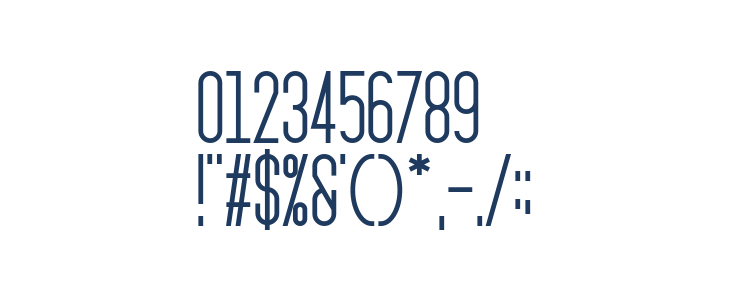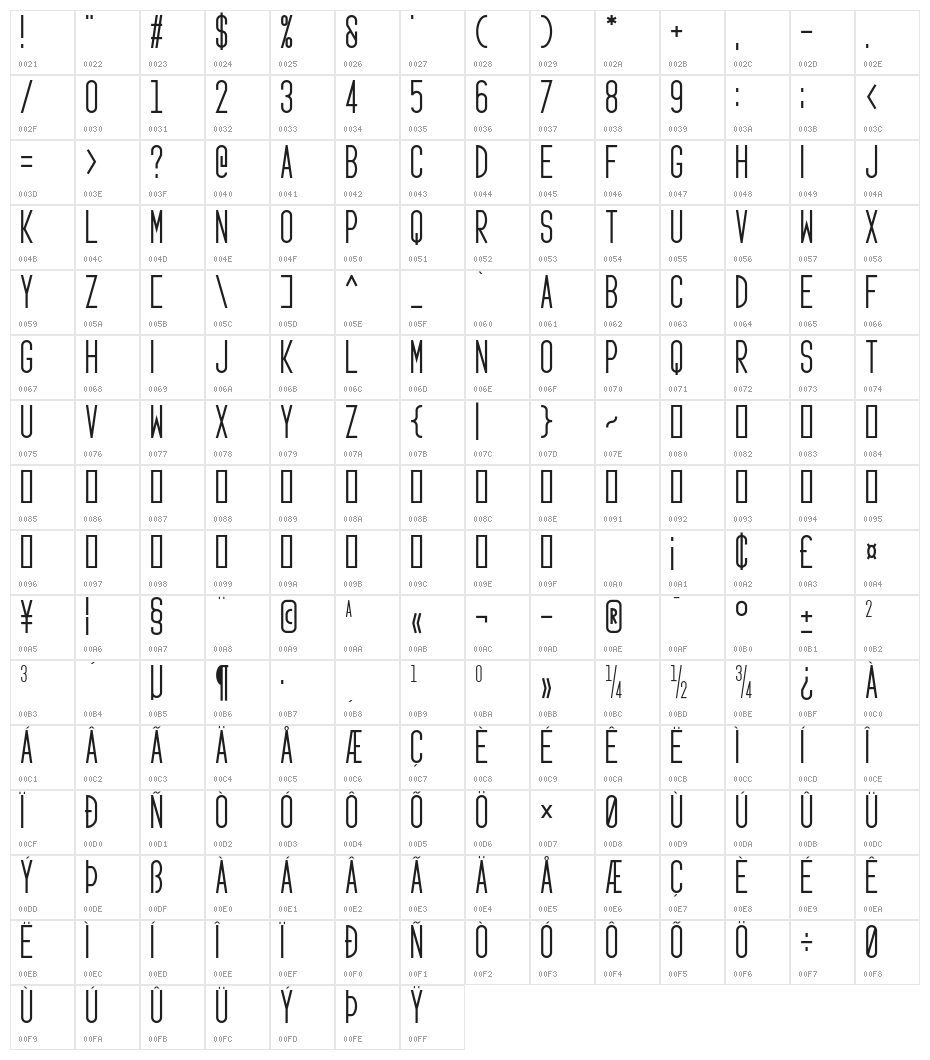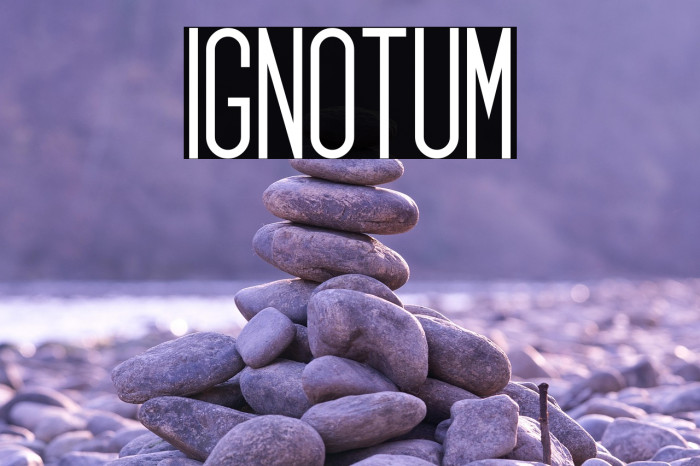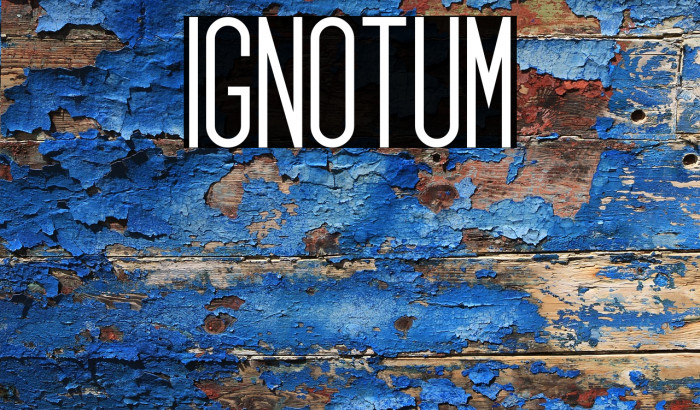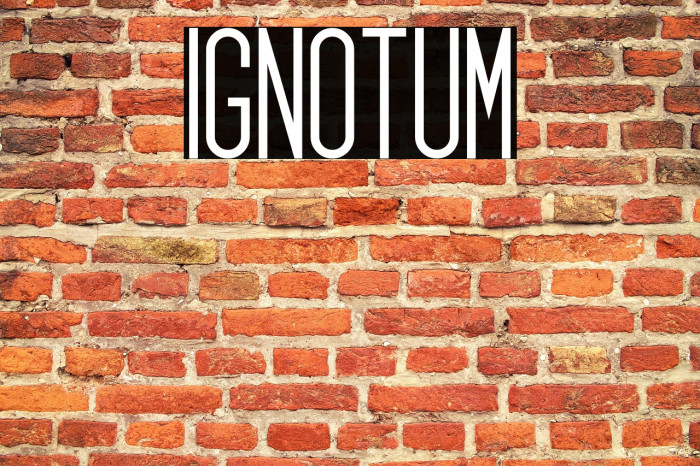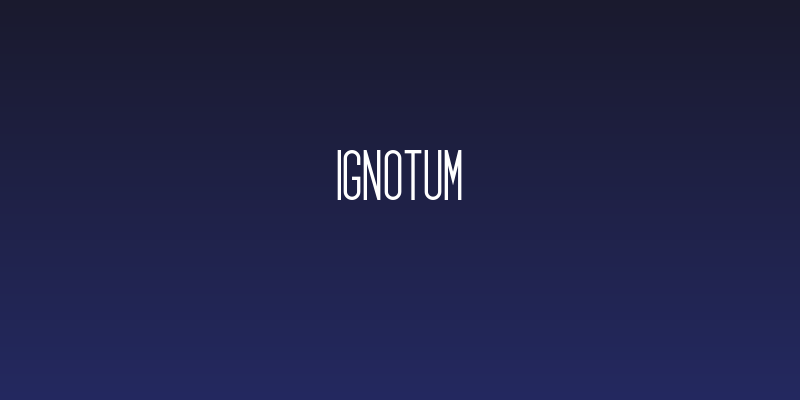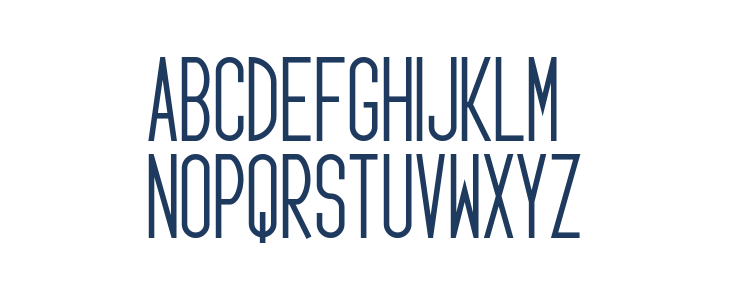
Ignotum Font
Ignotum Description
This font features a tall, narrow design with a distinctly modern and geometric appearance. The characters are uniformly aligned with consistent stroke widths, giving it a clean and structured look. The uppercase letters are particularly elongated, creating a striking vertical emphasis. The numerals and special characters maintain the same narrow and tall proportions, ensuring a cohesive visual style across all elements. This font's minimalistic and sleek design makes it suitable for contemporary projects that require a bold statement.